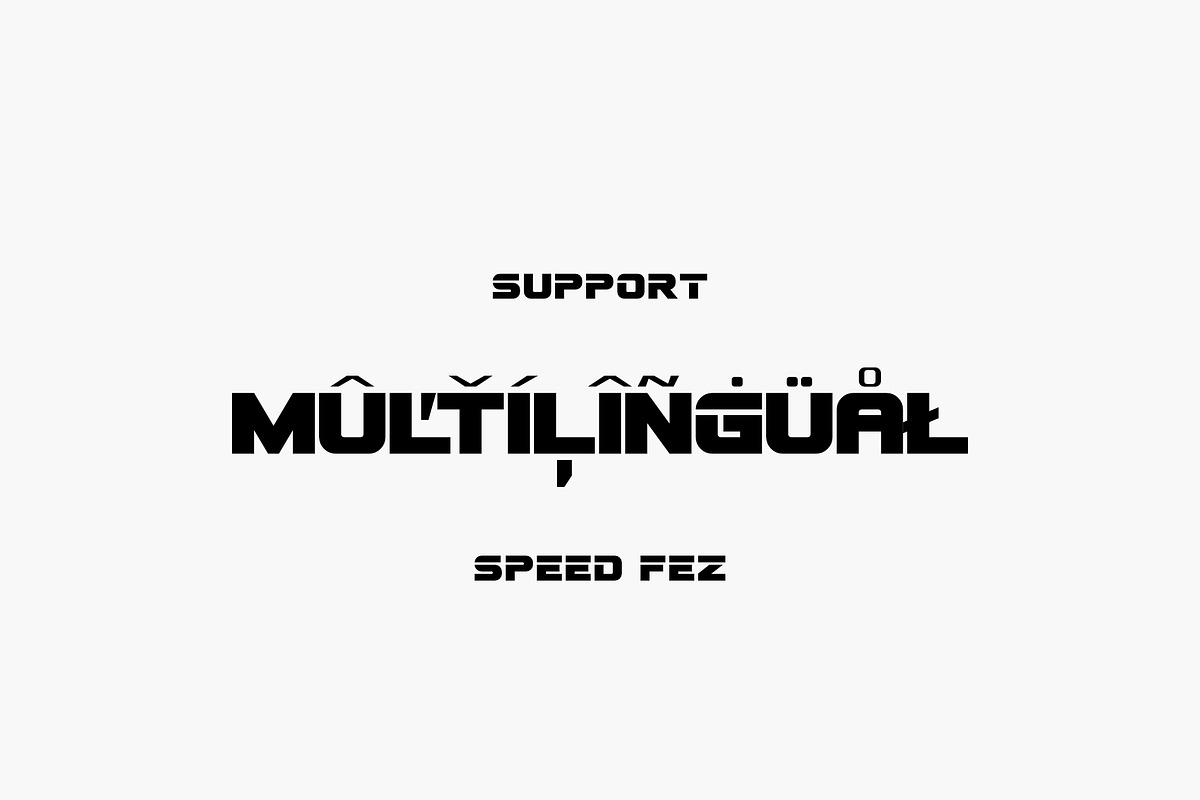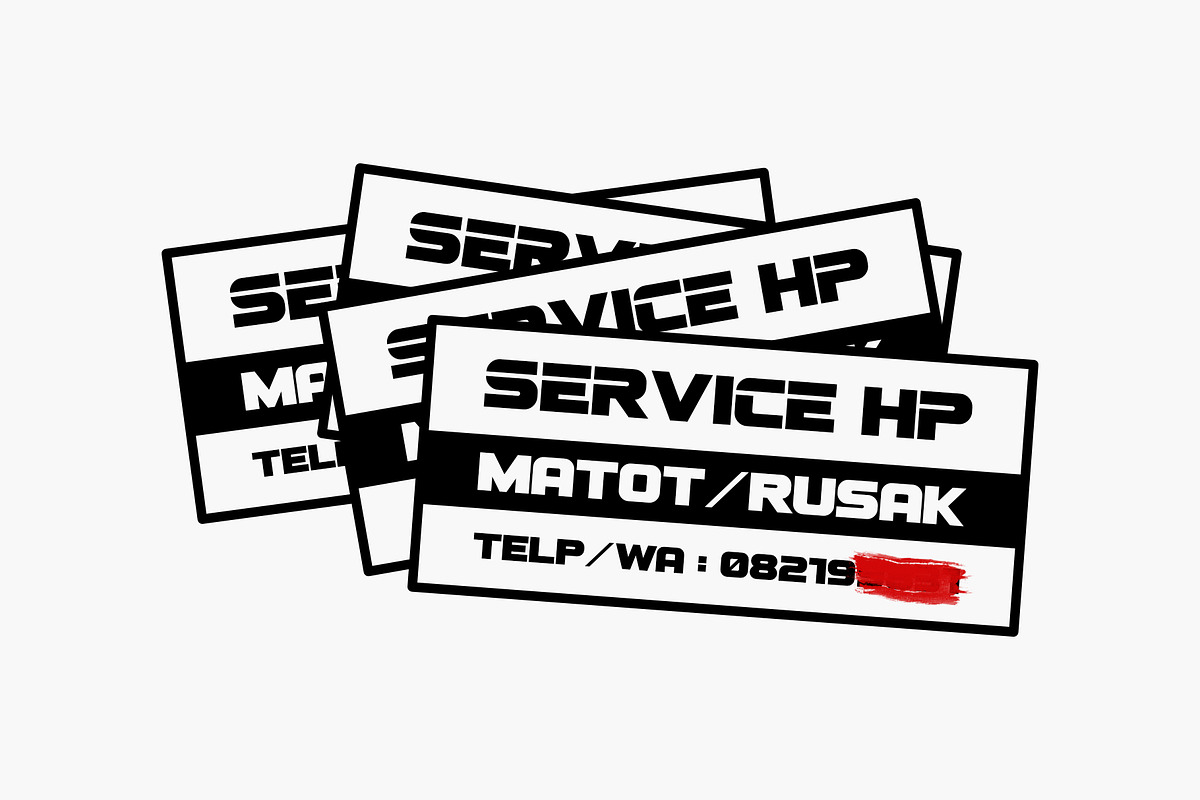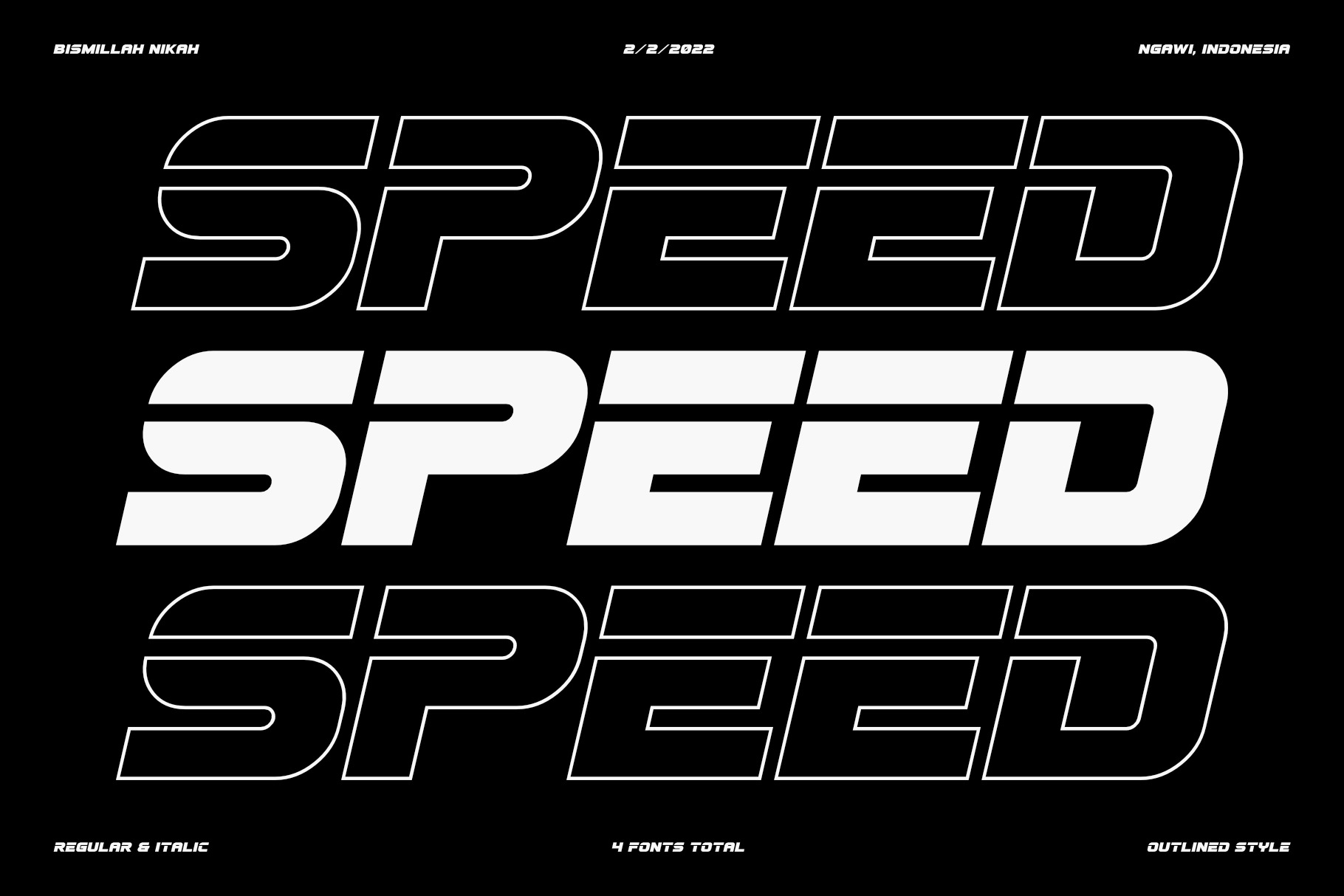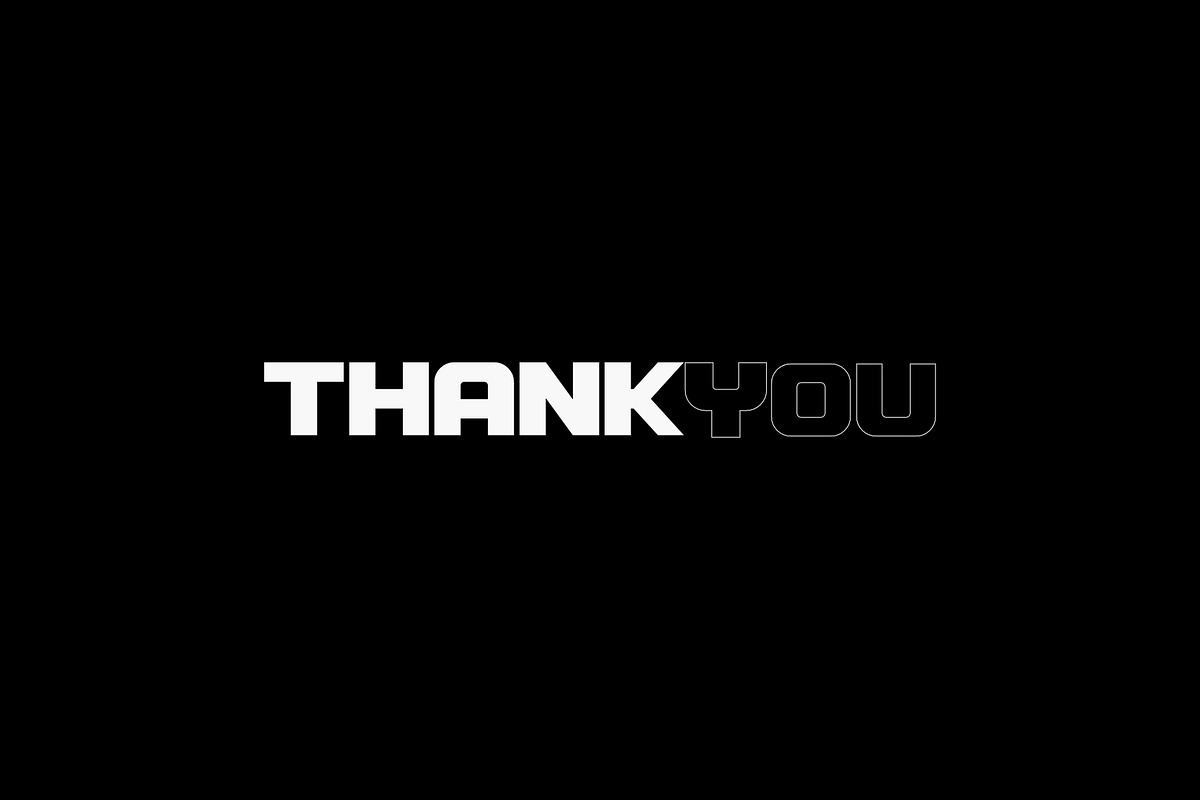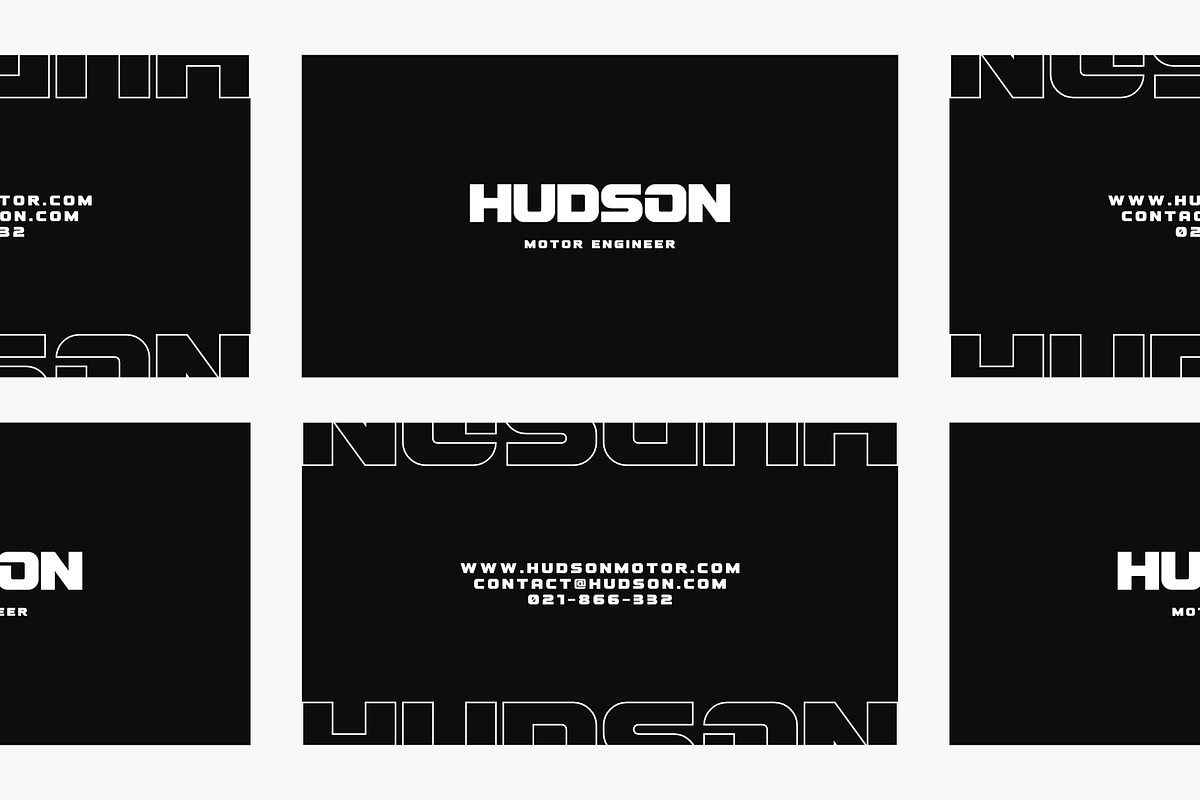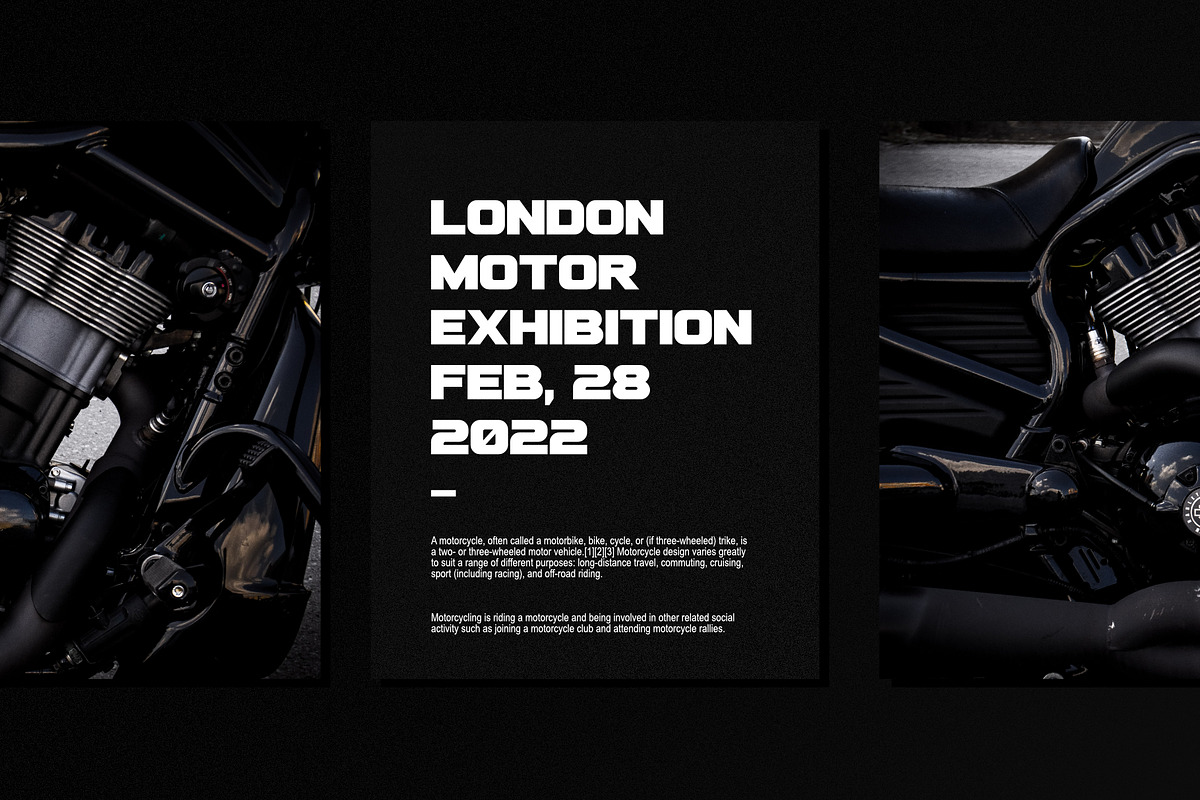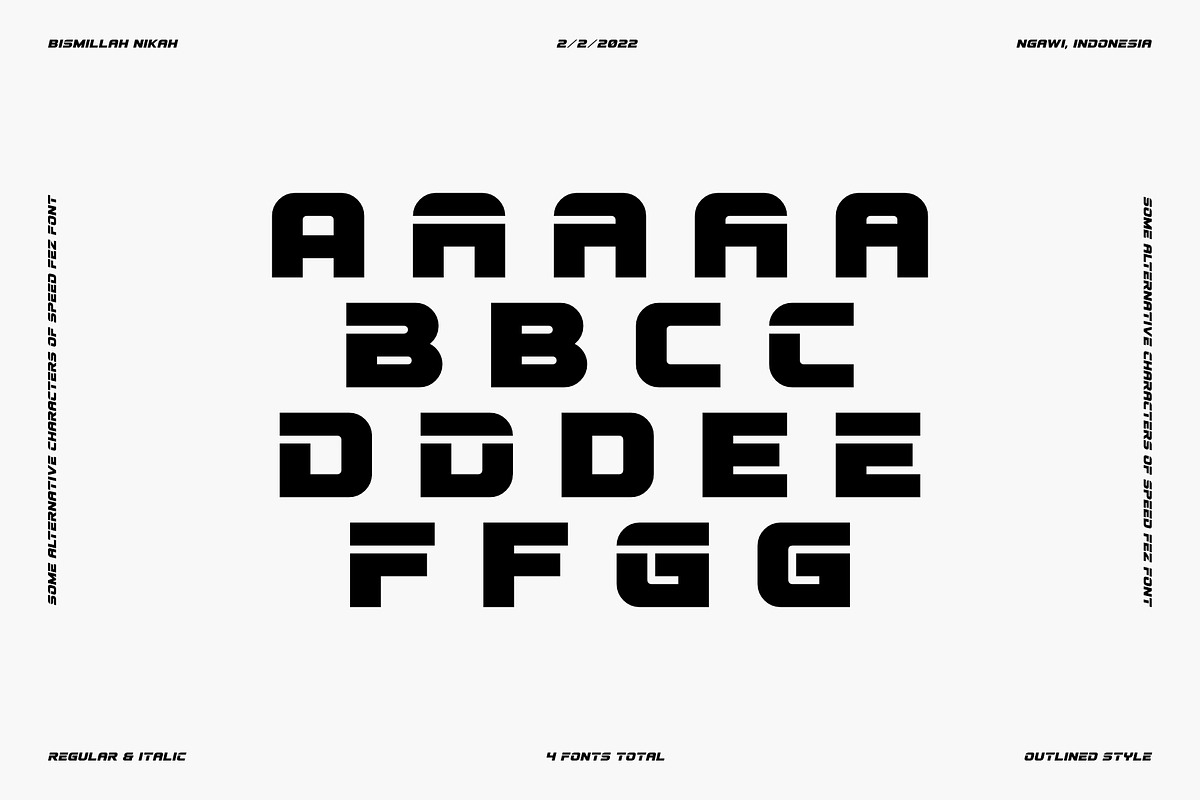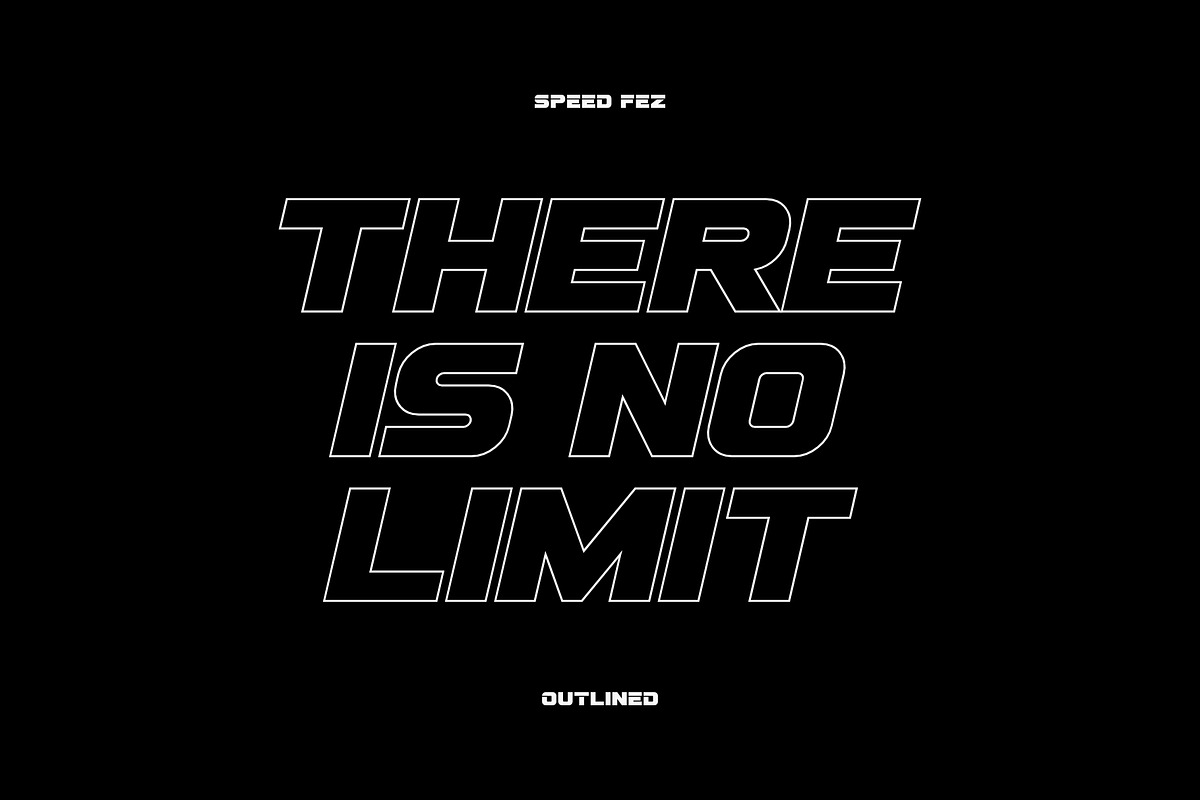
SPEED FEZ FONT
SPEED FEZ is a bold and heavy font designed for display purposes. Let me know what you think about this new font by reviewing it. Thank you